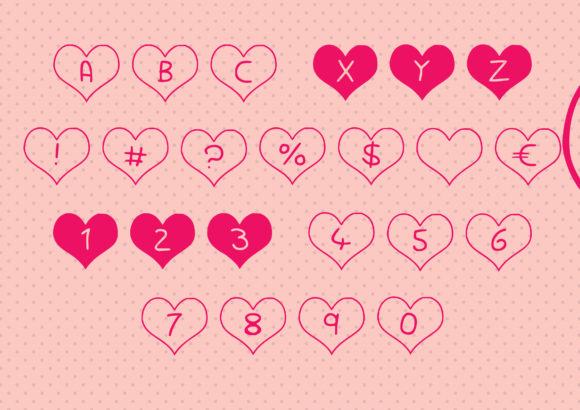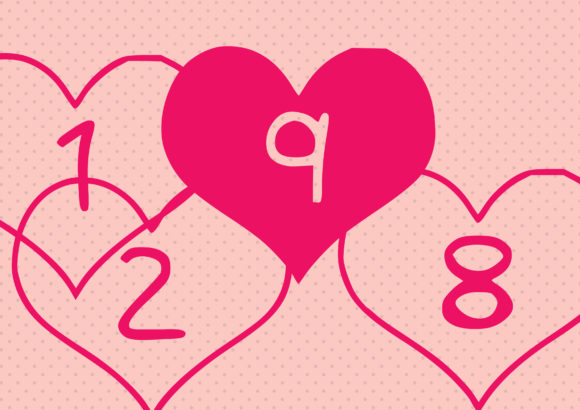
Introduction to Play Hearts Font Font
Fonts play a crucial role in design, and the Play Hearts Font font is a typeface that brings both character and versatility to any project. Whether you’re working on a branding project, a website, or a print design, the Play Hearts Font font offers a unique style that can elevate your work.
Play Hearts is a sweet, romantic and delicate decorative font.
Use it for each of your Valentineβs Day creation, love letter or pretty much any design that requires a warm touch .
Key Features of Play Hearts Font Font
Why Choose Play Hearts Font Font?
The Play Hearts Font font is more than just a typeface β it’s a design tool that helps you communicate your message with style and clarity. Its unique character set and versatile design make it suitable for a wide range of applications, from elegant invitations to bold headlines.
With its carefully crafted letterforms and balanced proportions, the Play Hearts Font font ensures readability and visual appeal across all mediums.
What makes Play Hearts Font font special?
The Play Hearts Font font stands out with its unique design, exceptional readability, and versatility across various design applications.